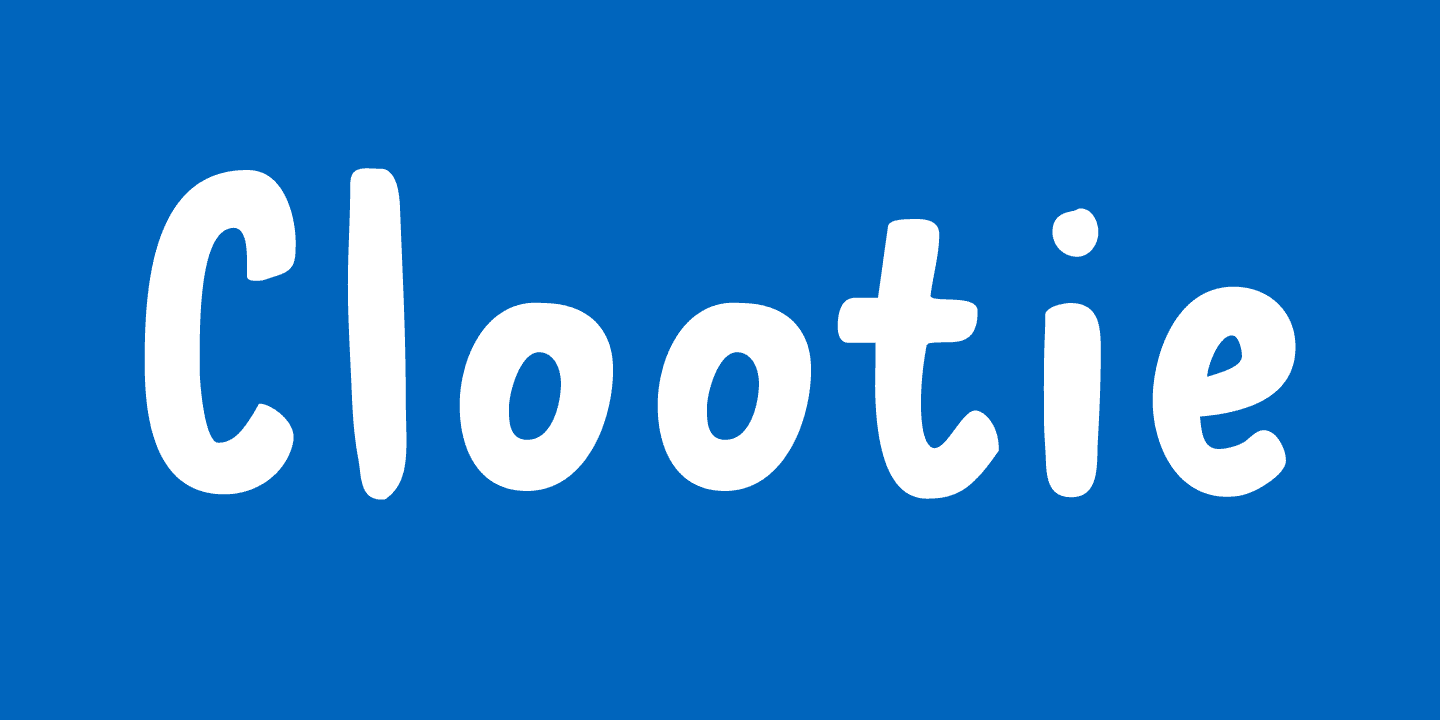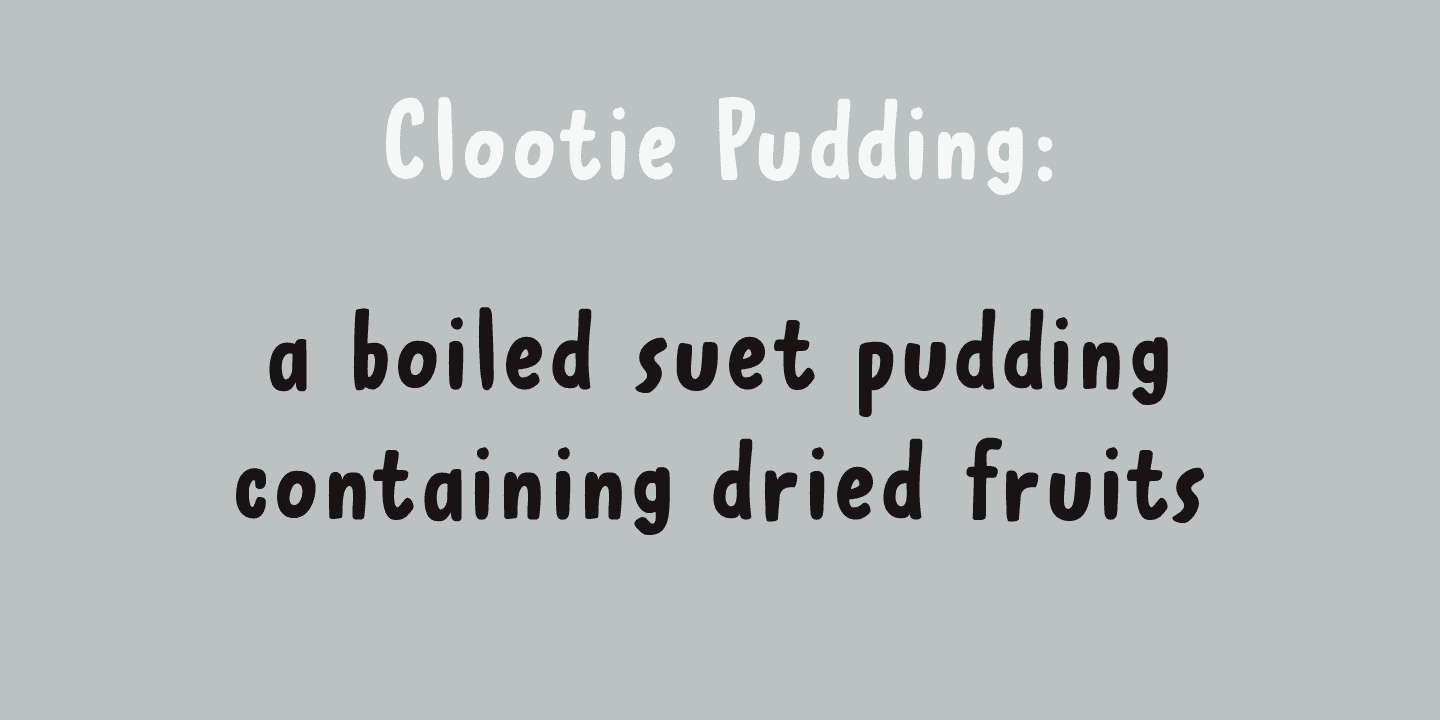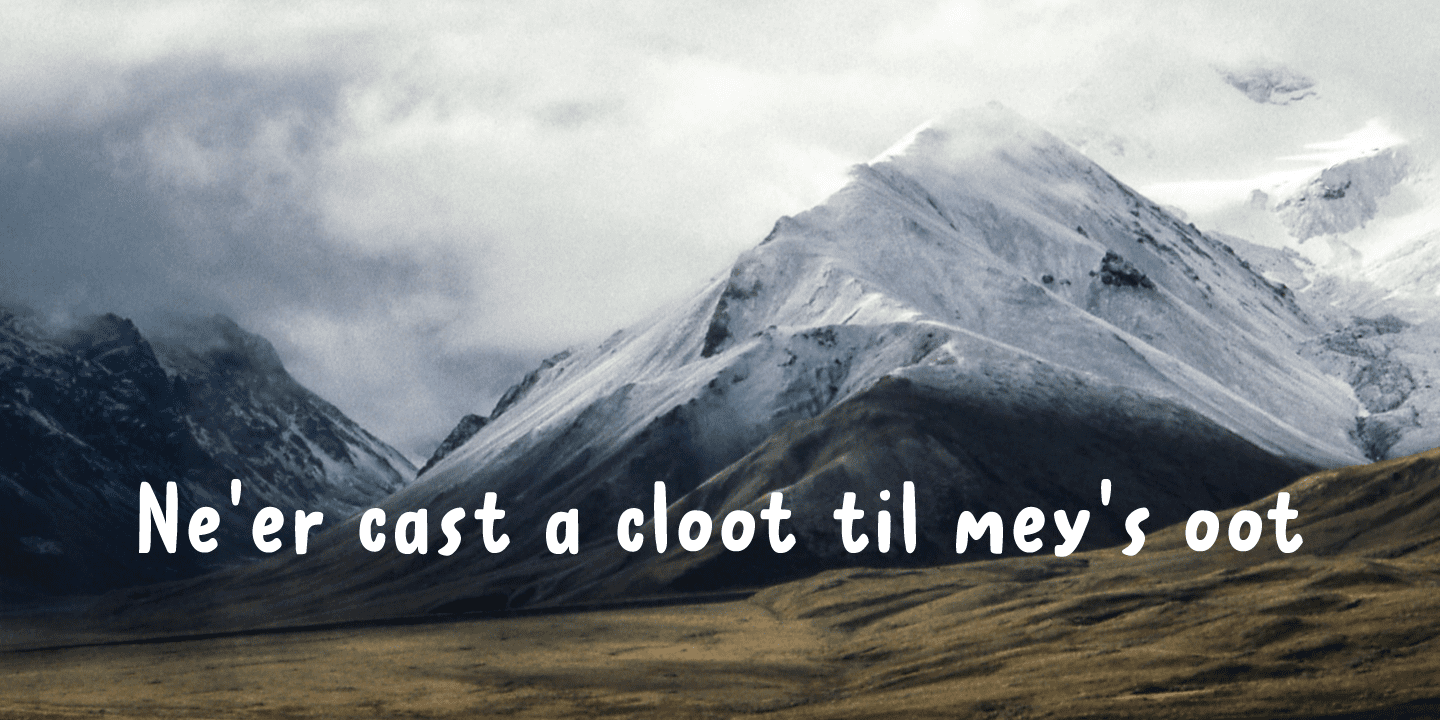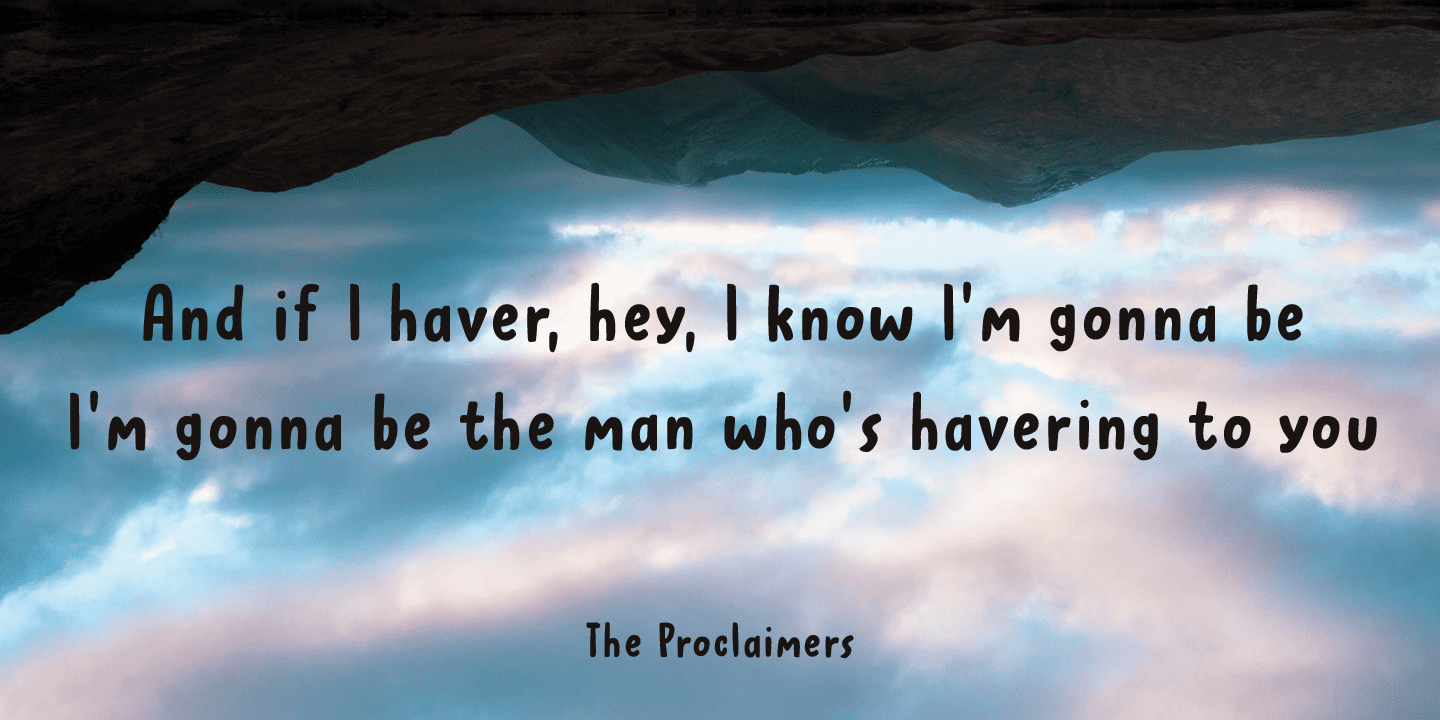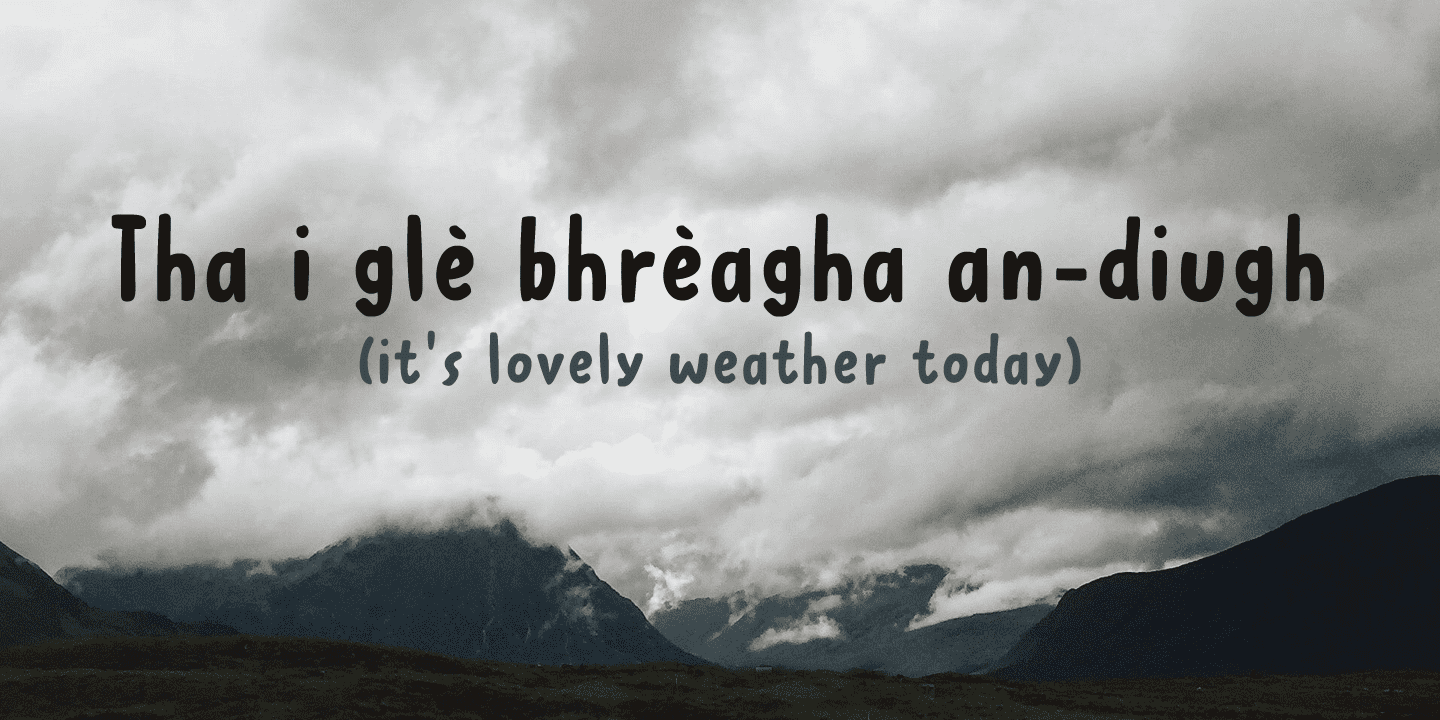
Clootie Family (2 fonts)
Clootie font is a handmade bundle of happiness. It is rounded, soft and legible and will look particularly good on book covers.
And I promise you all: one day I will cook clooties to find out what they taste like!